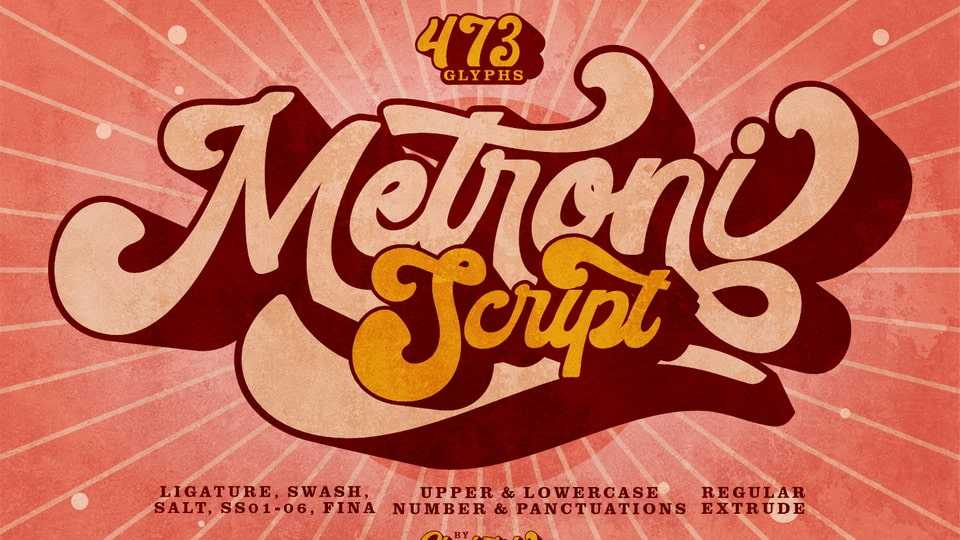
Download Metroni font, a retro-inspired script typeface that back to the golden age of advertising and design. Its flowing letterforms feature elegant curves and loops, giving Metroni a sense of fluidity and motion.